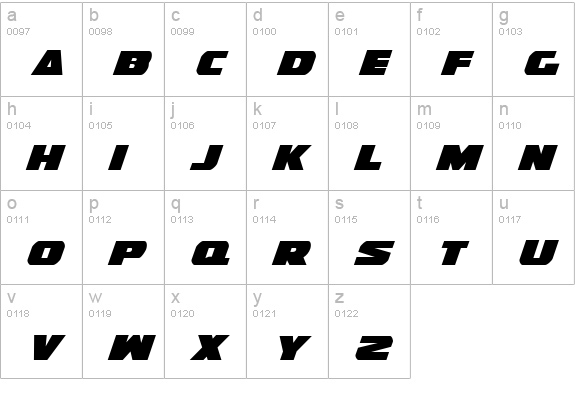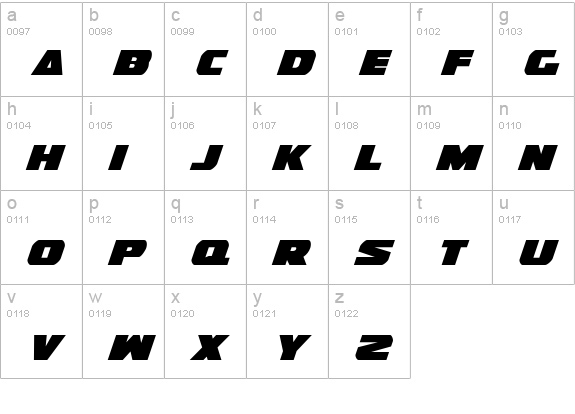
Guardian Italic is a distinctive, italic variant in the Guardian typeface family \xE2\x80\x94 well suited to design and typography projects.
Guardian Italic font is an elegant and sophisticated typeface that adds a touch of modernity to any design project. With its slanted and stylish appearance, Guardian Italic exudes a sense of professionalism and creativity. Whether used for titles, headlines, or body text, this font will surely stand out and capture the attention of your audience. The best part? Guardian Italic font is completely free to download at FontsMarket.com, making it accessible to designers and creators of all levels. Now you can elevate your designs without breaking the bank. Don't miss out on this opportunity to enhance your projects with the sleek and eye-catching Guardian Italic font. Download it today and see the difference it can make in your work!